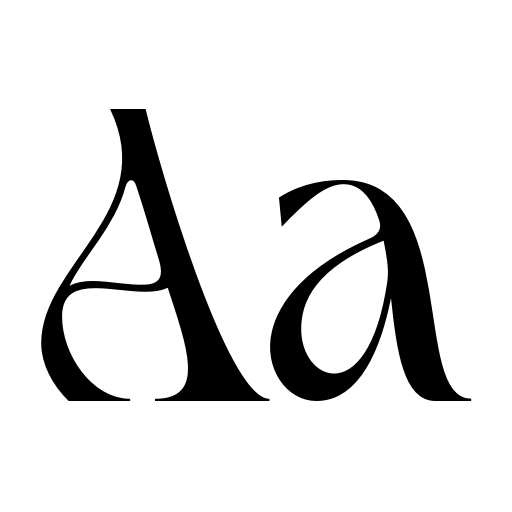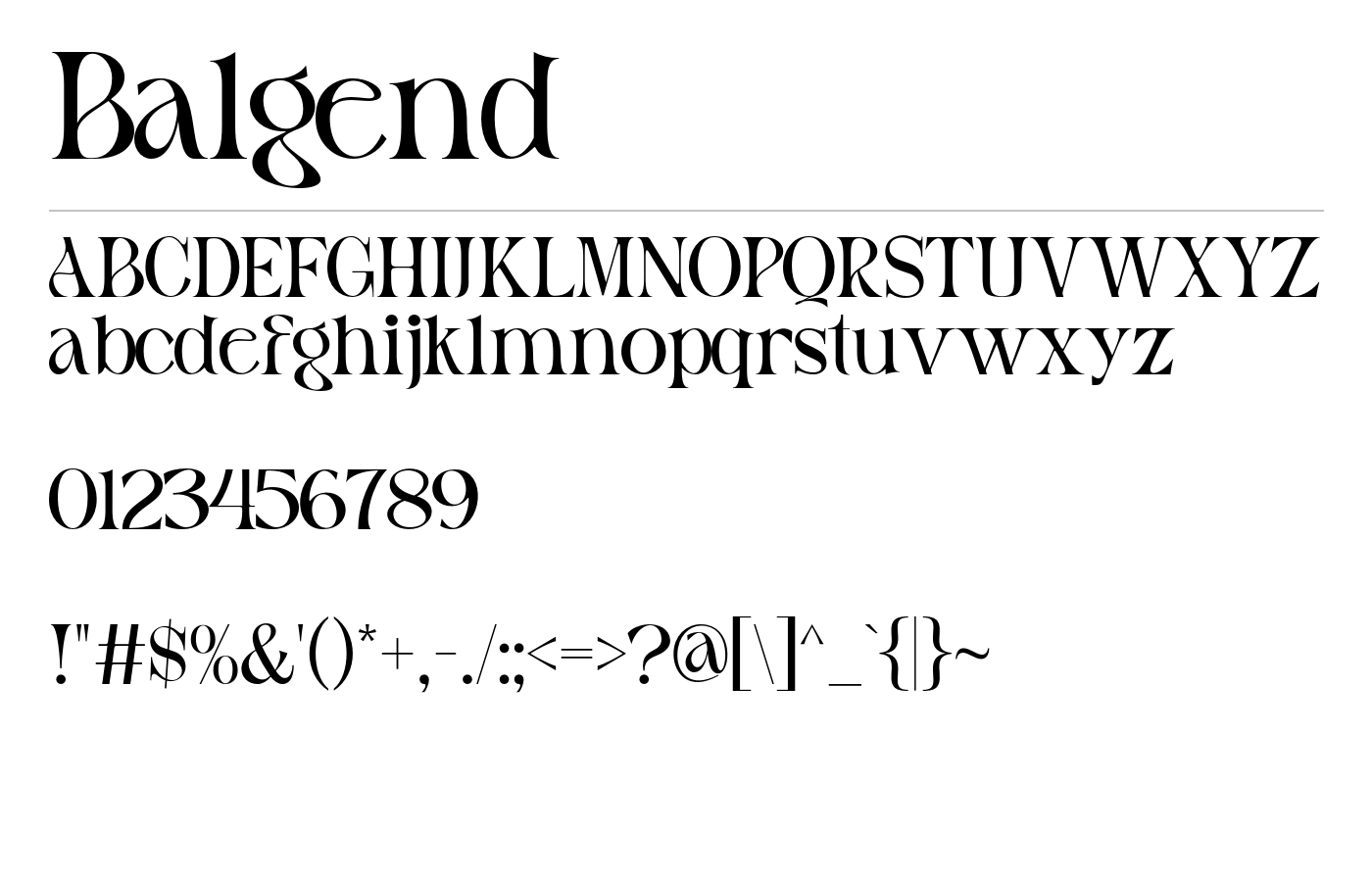
Balgend is a stylish serif font with a modern twist, featuring high contrast between thick and thin strokes and unique, elegant letterforms with sharp, bracketed serifs. Its refined, slightly condensed structure and distinctive character shapes make it perfect for luxury branding, editorial headlines, and sophisticated packaging. This font conveys a sense of elegance and creativity, ideal for designs that want to stand out with a fashionable, polished look.
About Balgend Font